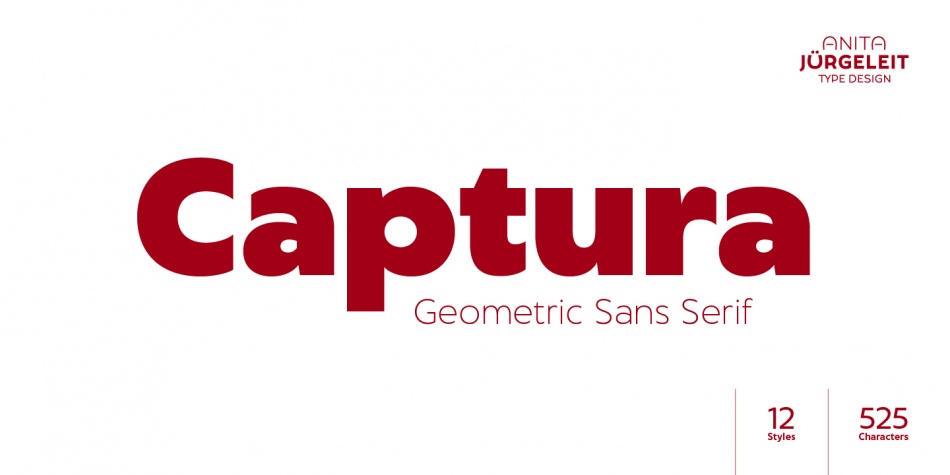
Captura Font
Captura Font is perfect for photography studio branding, visual media campaigns, creative agency identities, film production materials, digital art portfolios, gallery exhibition signage, modern publishing projects, contemporary advertising designs, and artistic documentation presentations.
What makes Captura Font exciting is its sophisticated ability to capture and convey visual storytelling through precisely crafted letterforms that embody the essence of contemporary photography and digital media. The font features clean, modern proportions with subtle artistic nuances that reflect the technical precision and creative vision required for exceptional visual capture. Its carefully balanced design philosophy makes it perfect for brands that want to communicate artistic expertise, visual sophistication, and the compelling power of captured moments while maintaining professional credibility and contemporary appeal.
Captura Font family includes various visual weights such as Light, Regular, Medium, and Bold variations, often featuring stylistic alternates and media-inspired decorative elements. The family may include photography symbols, creative ornaments, and visual arts ligatures that enhance the font's artistic aesthetic, providing designers with comprehensive options for creating compelling brand identities that resonate with visual artists and photography professionals.